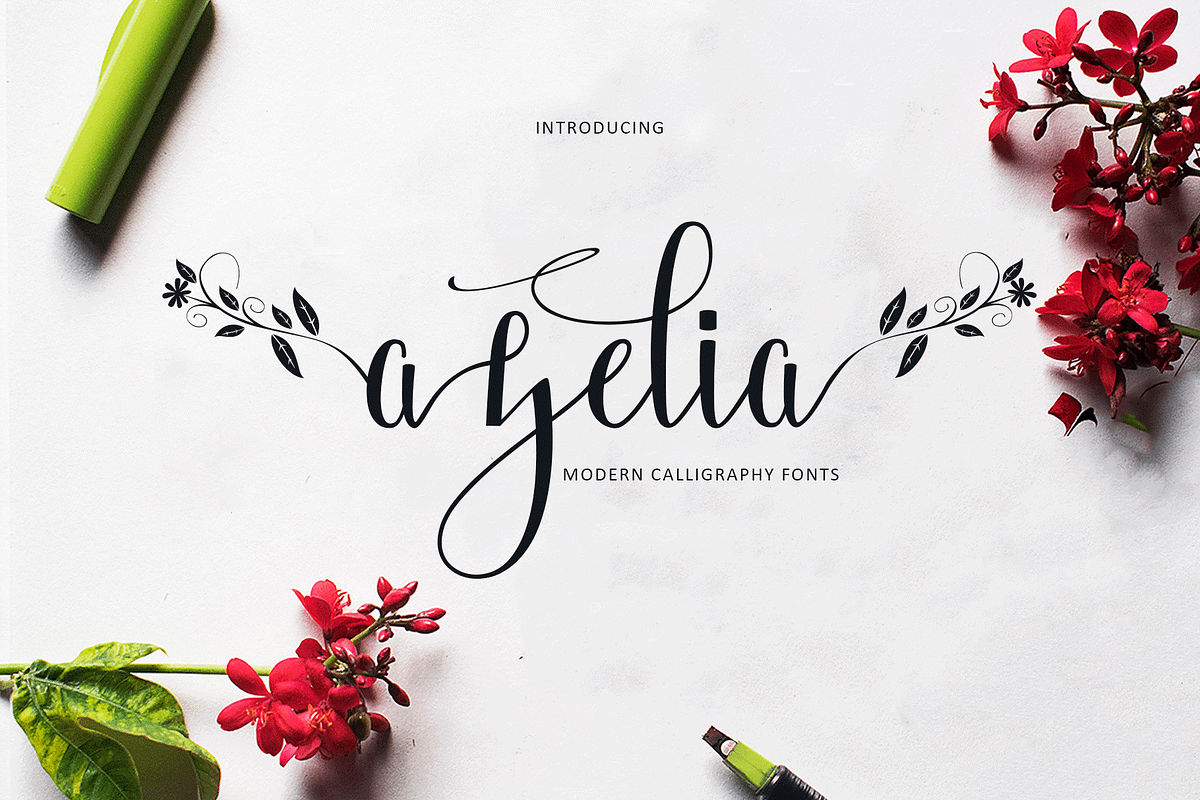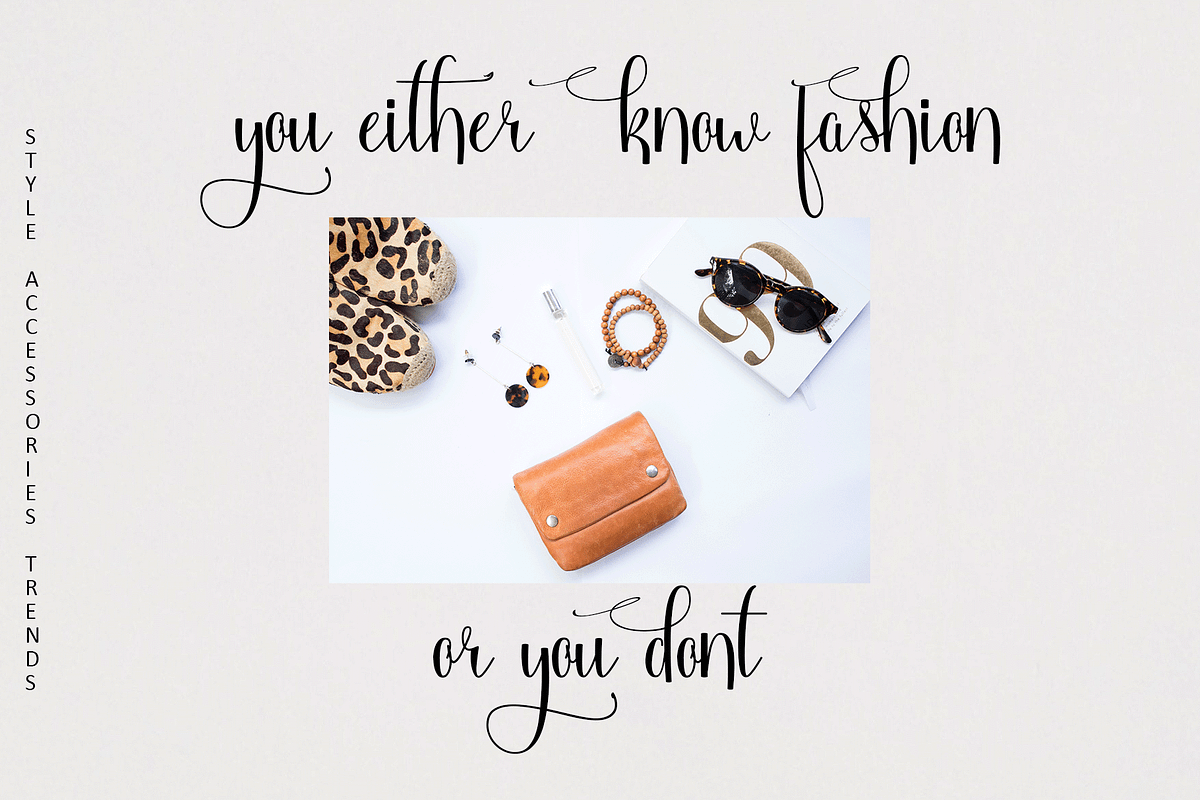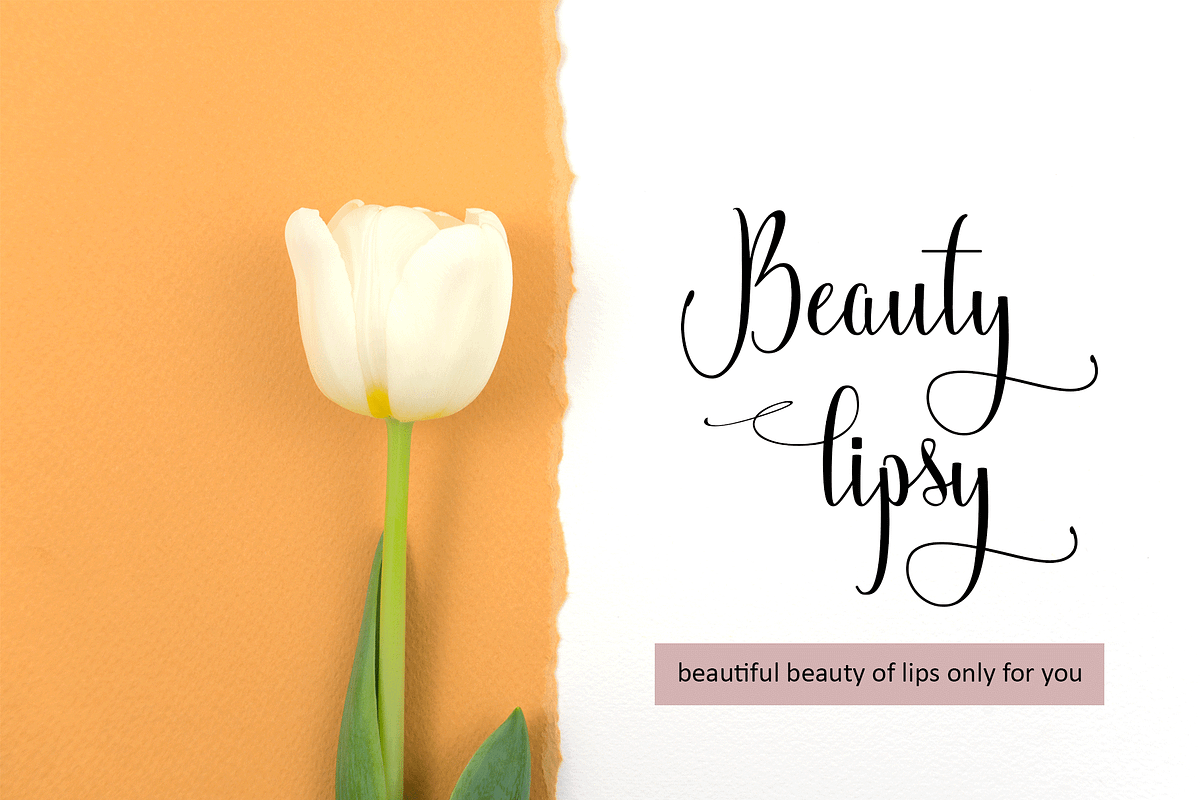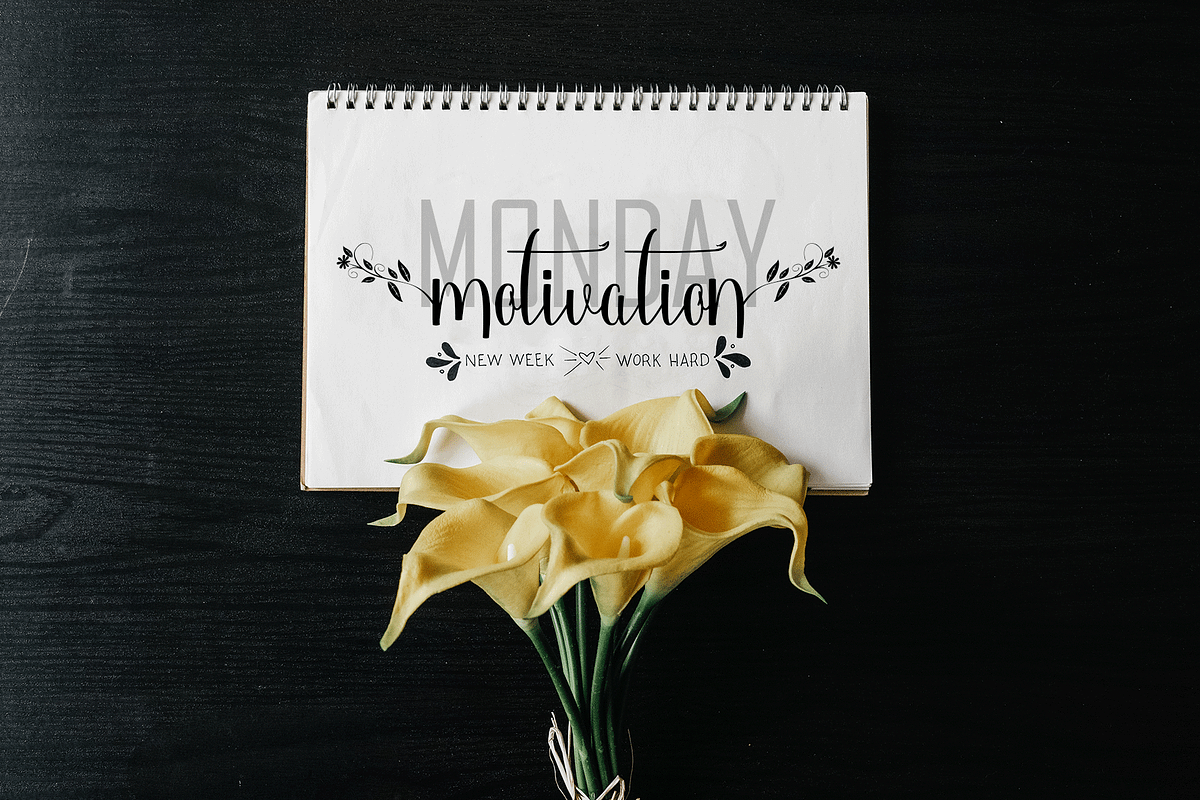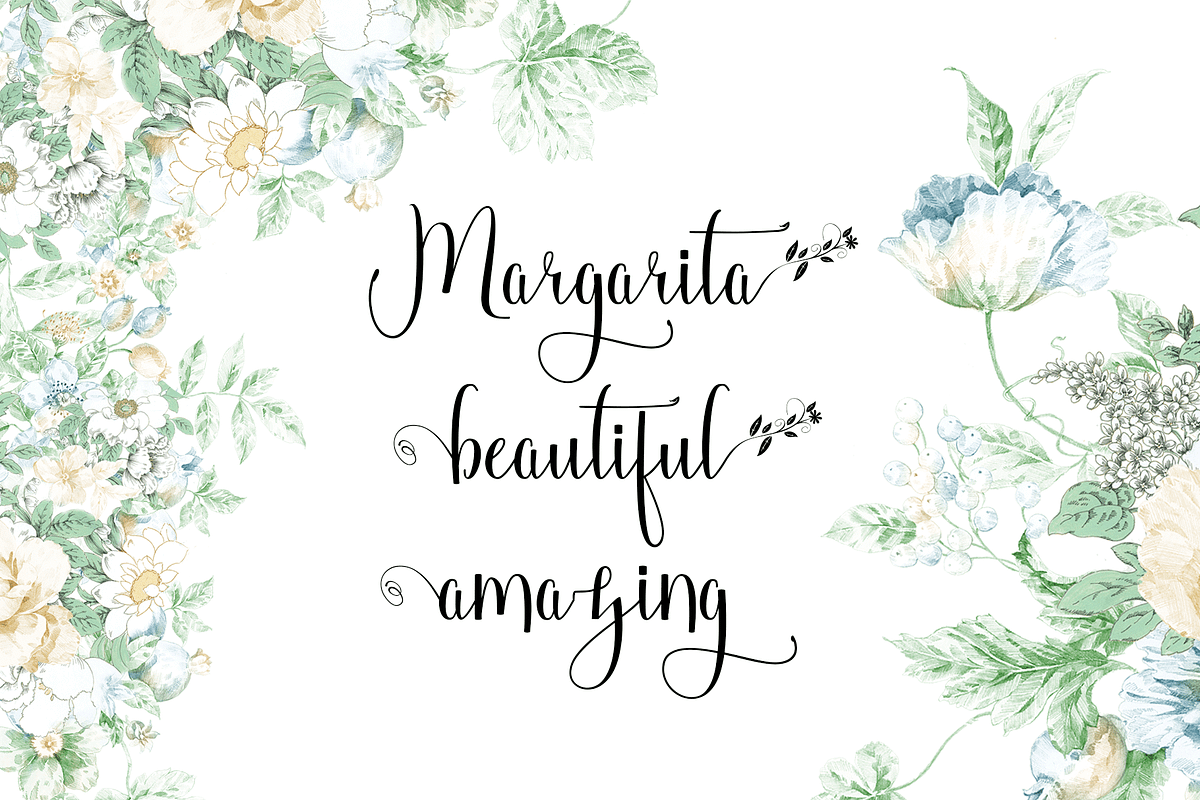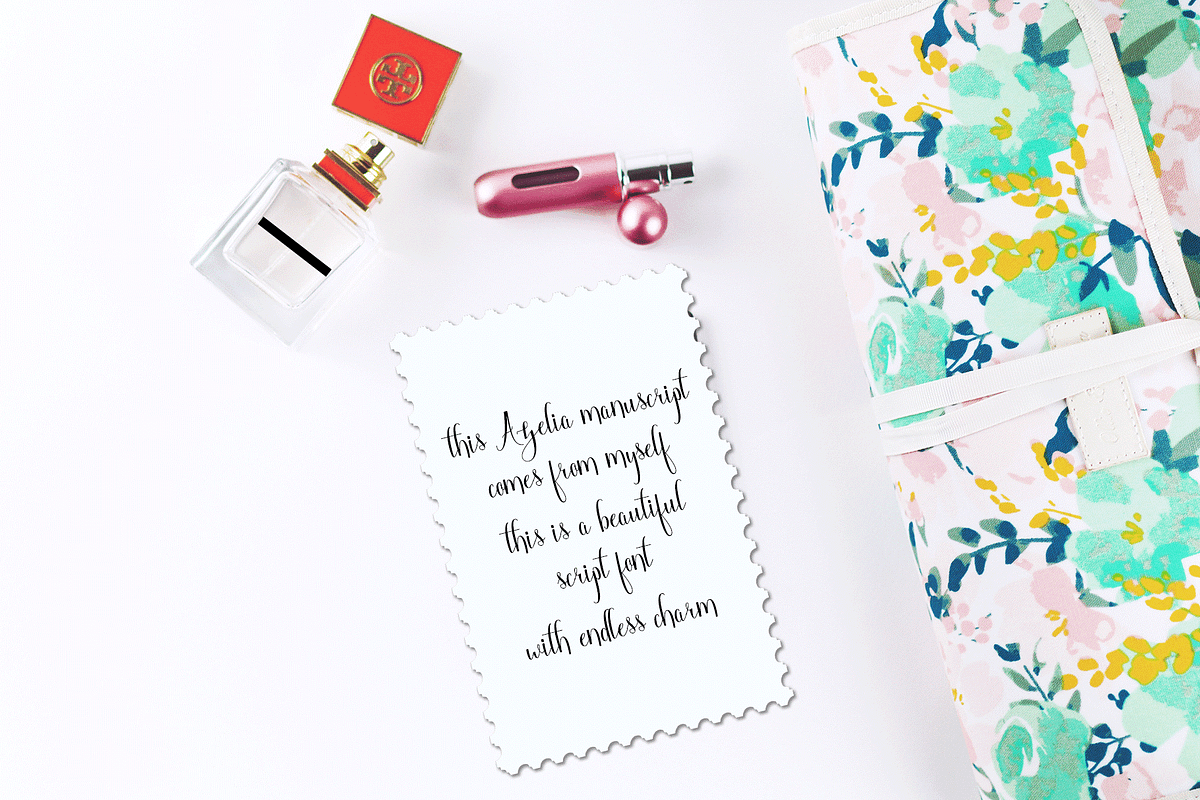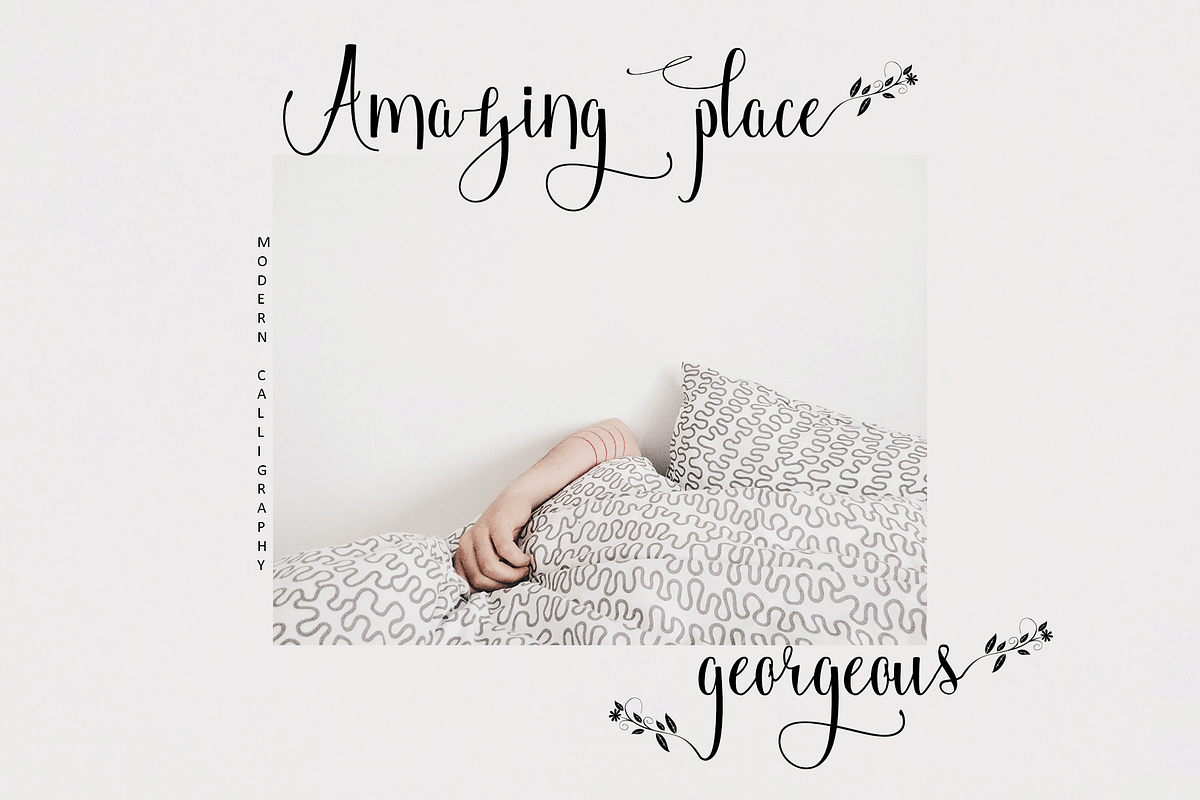
Azelia
Azelia, a work that is purely handwritten, has natural characteristics. It's perfect for invitations, signatures, blogs, social media, business cards, product brands.
Azelia is a simple font that has Stylistic standards, Stylistic Alternatives, Ligature, Swash, and includes uppercase and lowercase letters, numbers and punctuation.